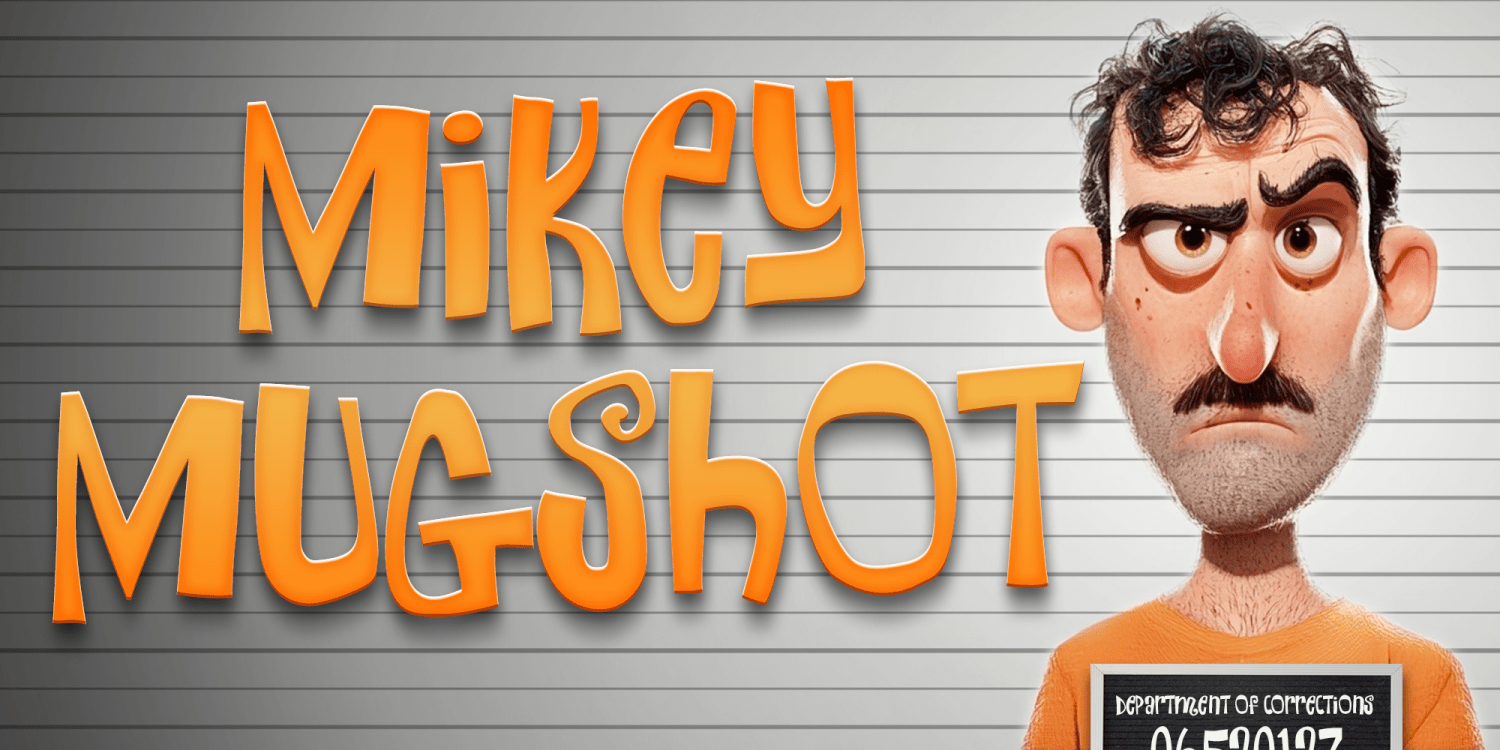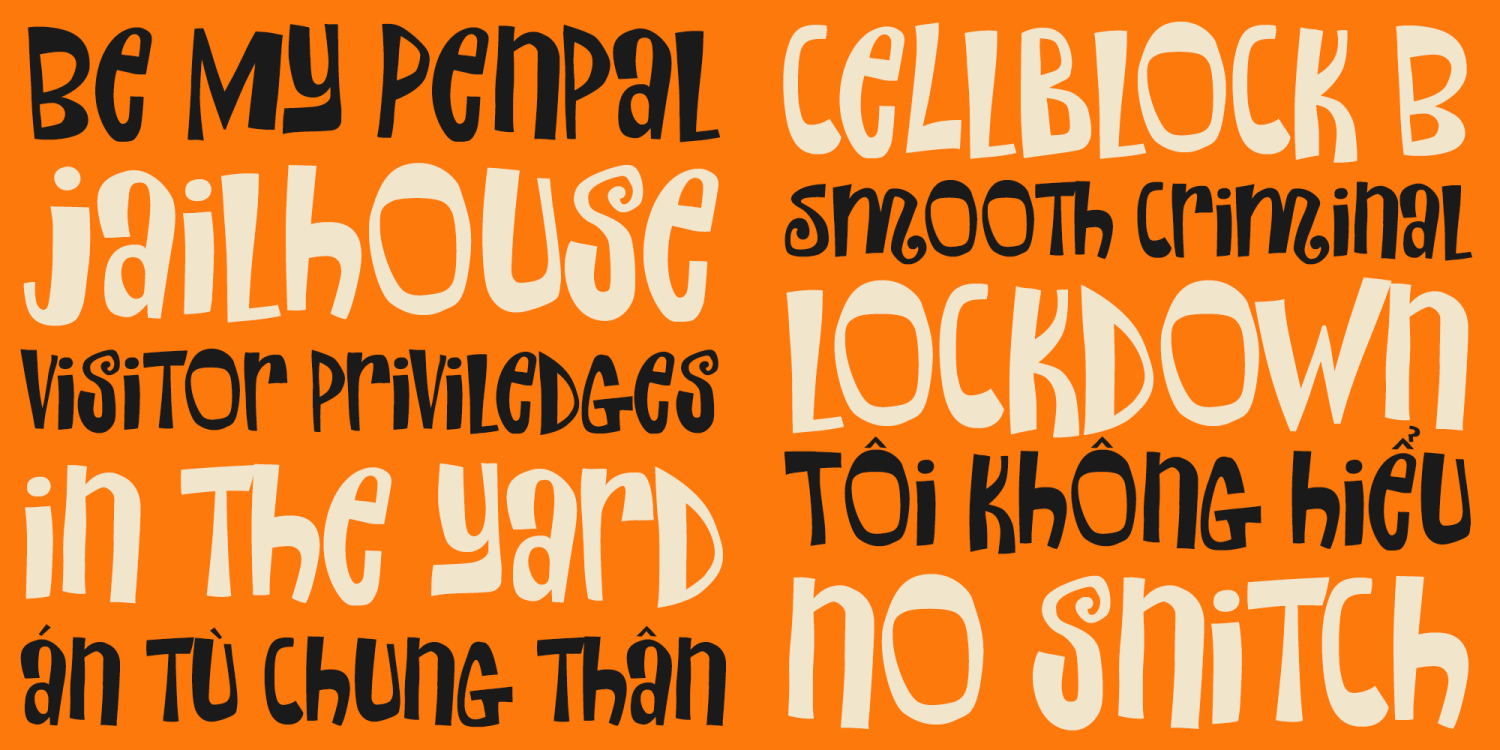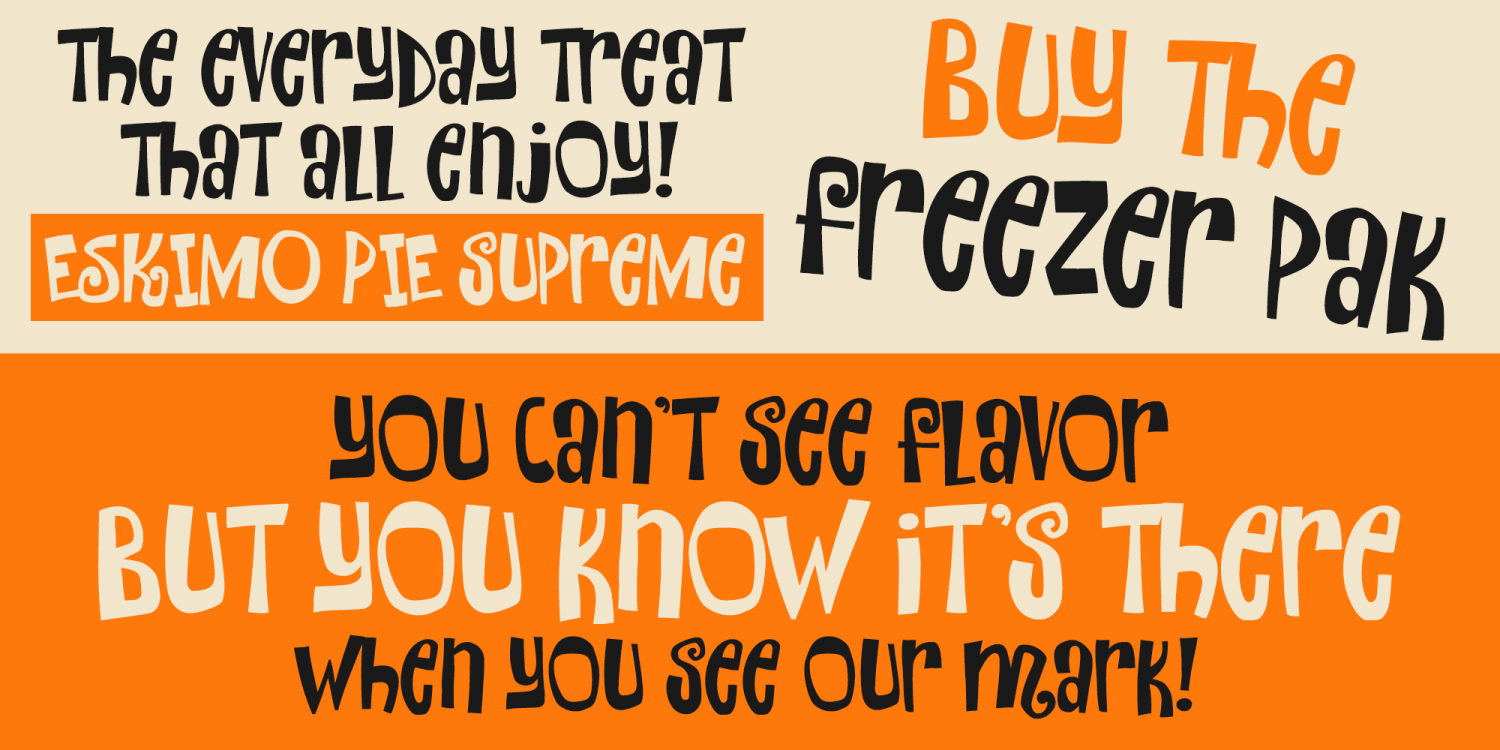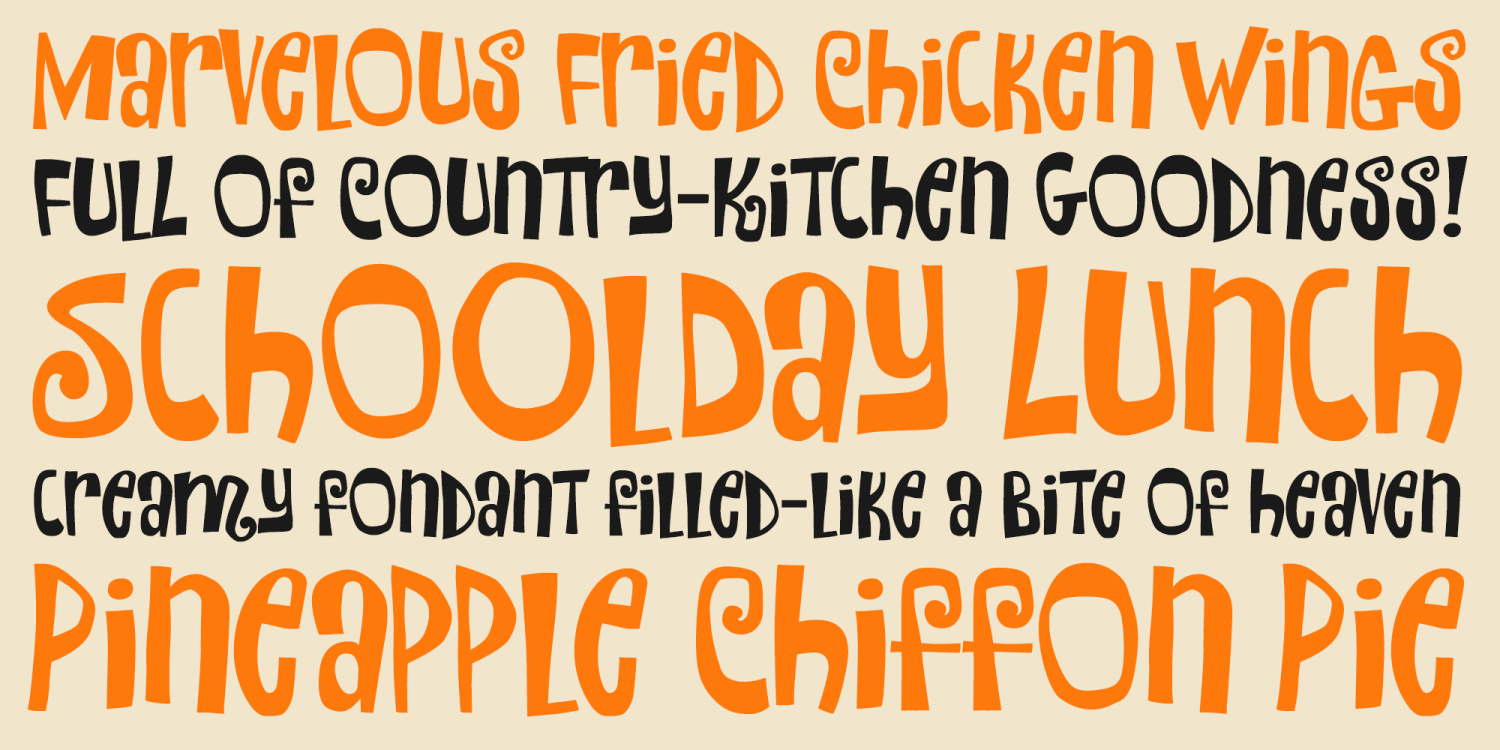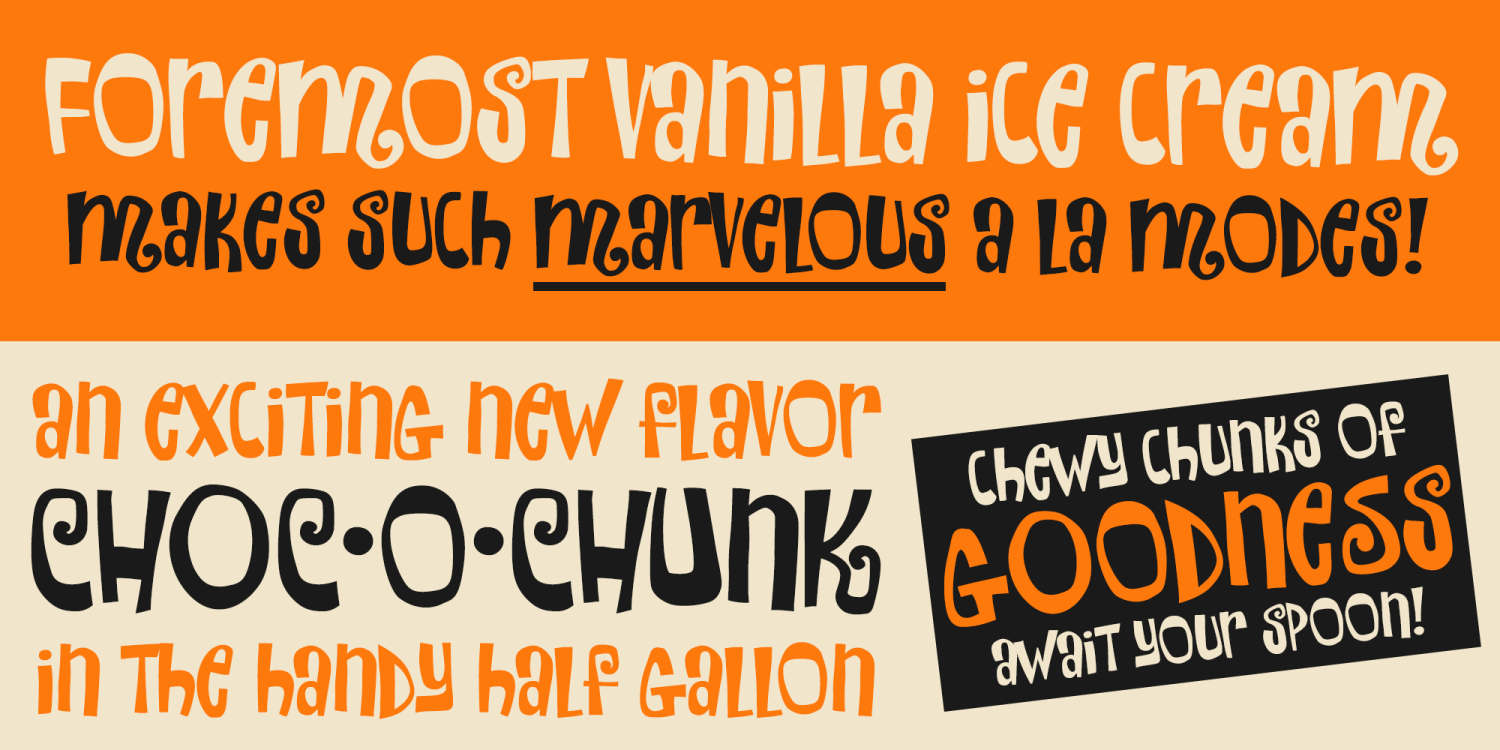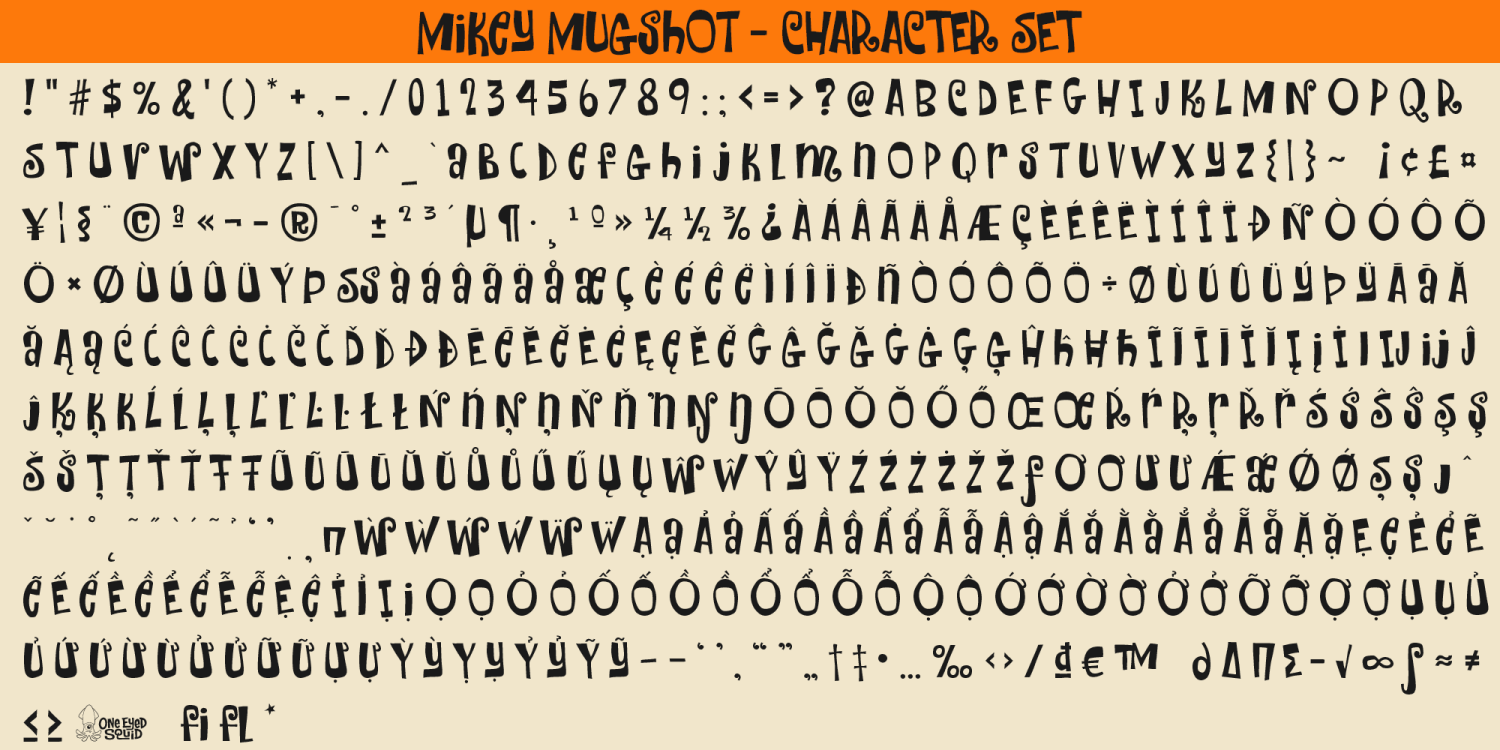
Mikey Mugshot
Font Family by One Eyed Squid
Mikey Mugshot is a mischievous display font with madcap energy, quirky character, and a bold sense of fun. Its playful letterforms bring a slightly unruly, offbeat personality to designs that want to feel lively, unconventional, and full of visual attitude. Ideal for headlines, posters, branding, packaging, logos, social media graphics, and other creative projects that benefit from a cheeky, expressive typographic voice, Mikey Mugshot delivers memorable impact with a mischievous twist. Includes extended Latin language support, including Vietnamese.